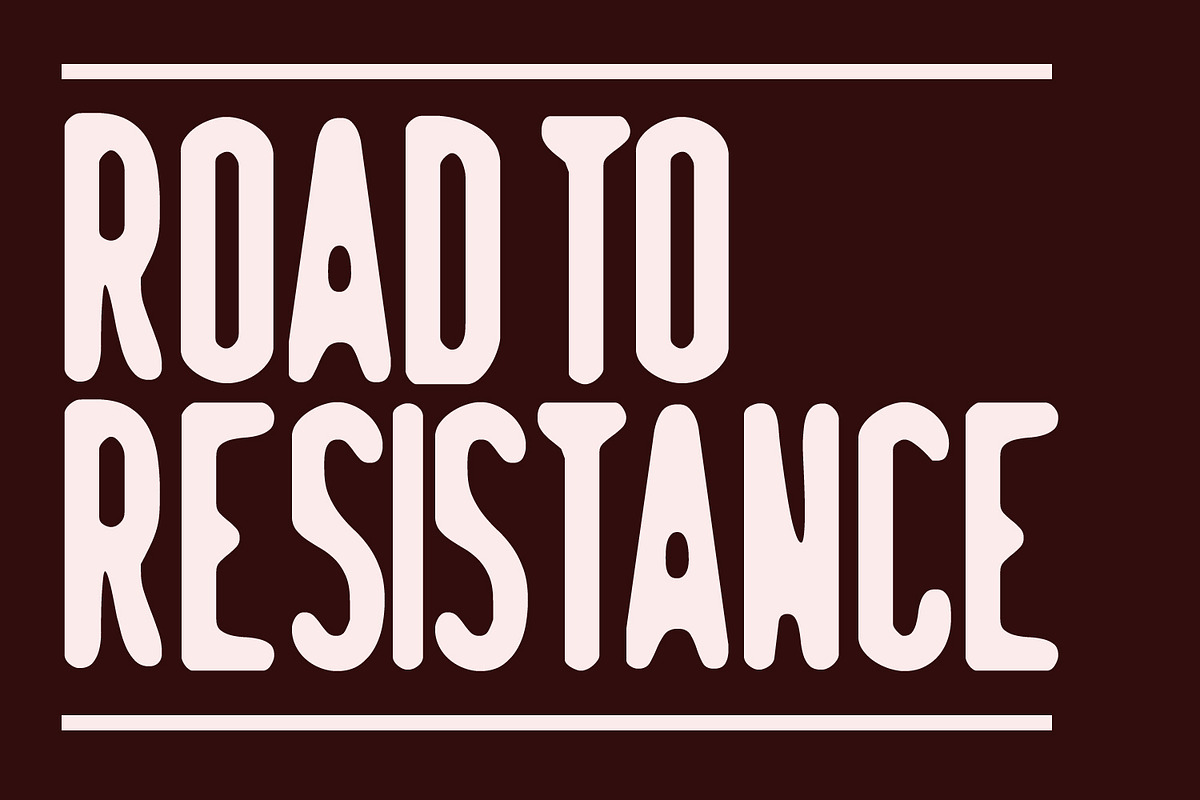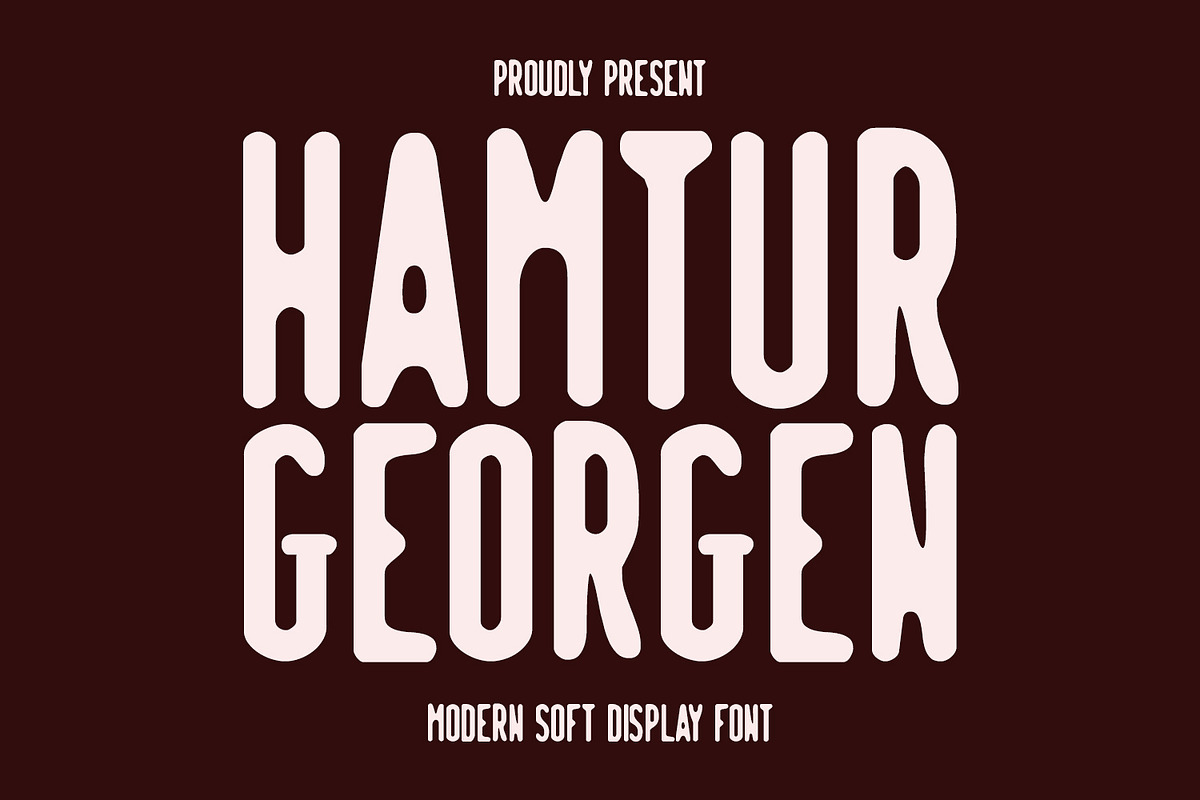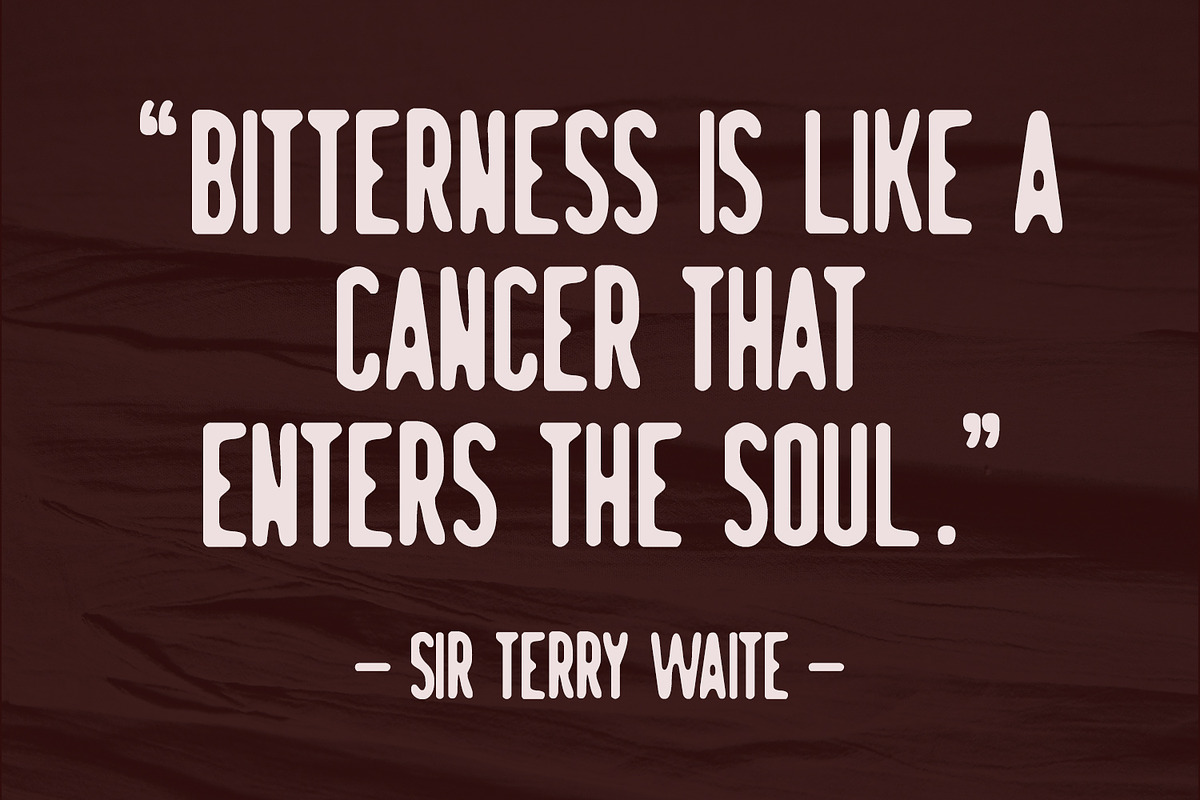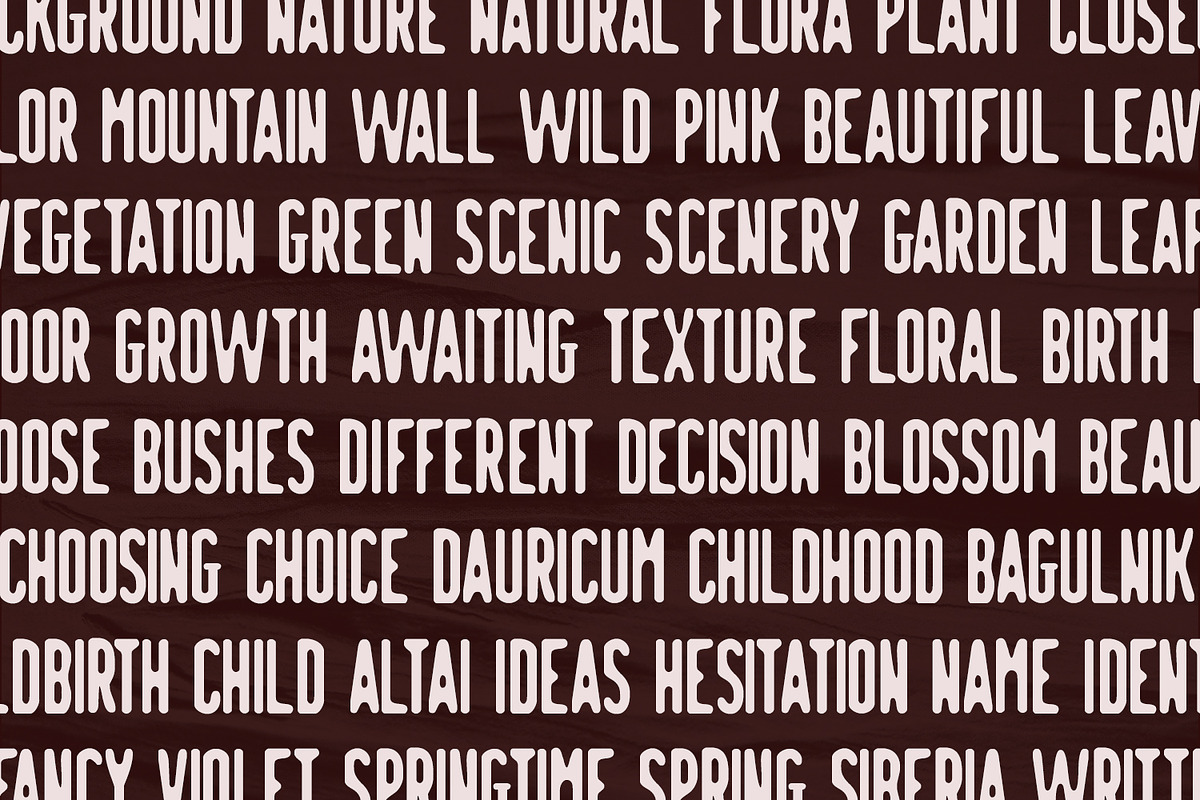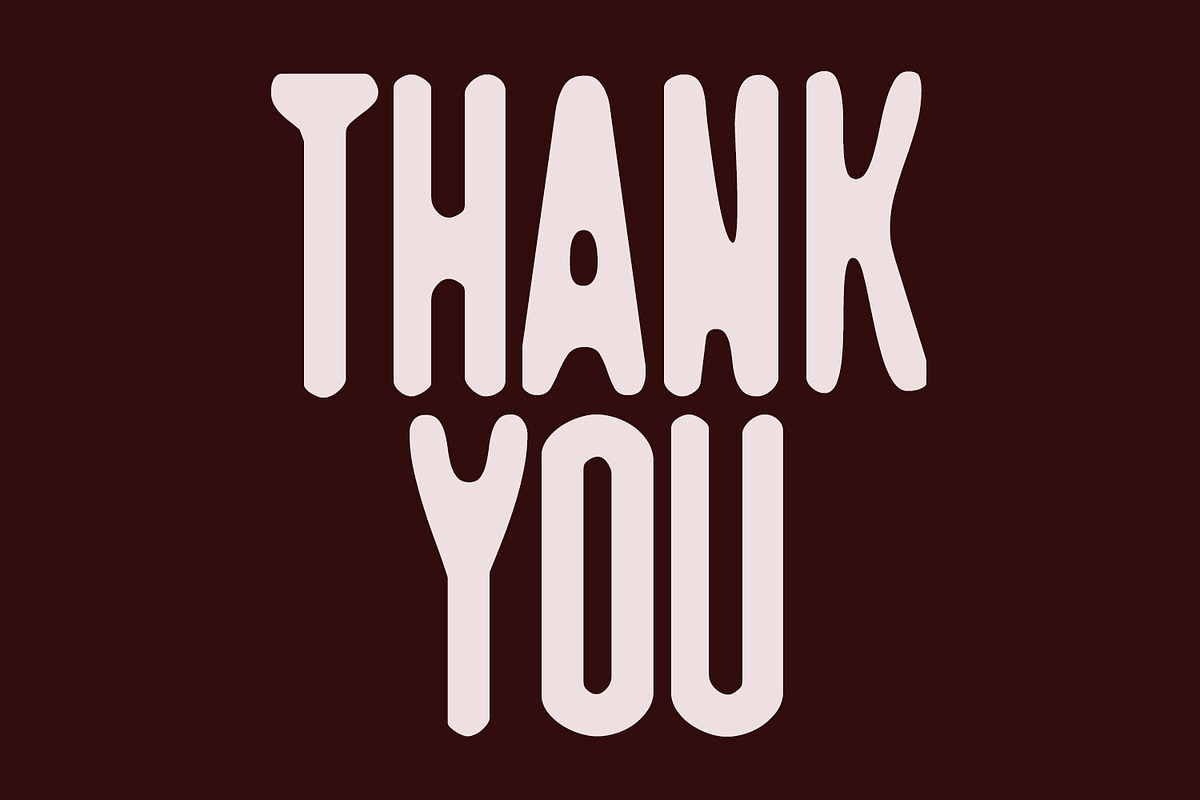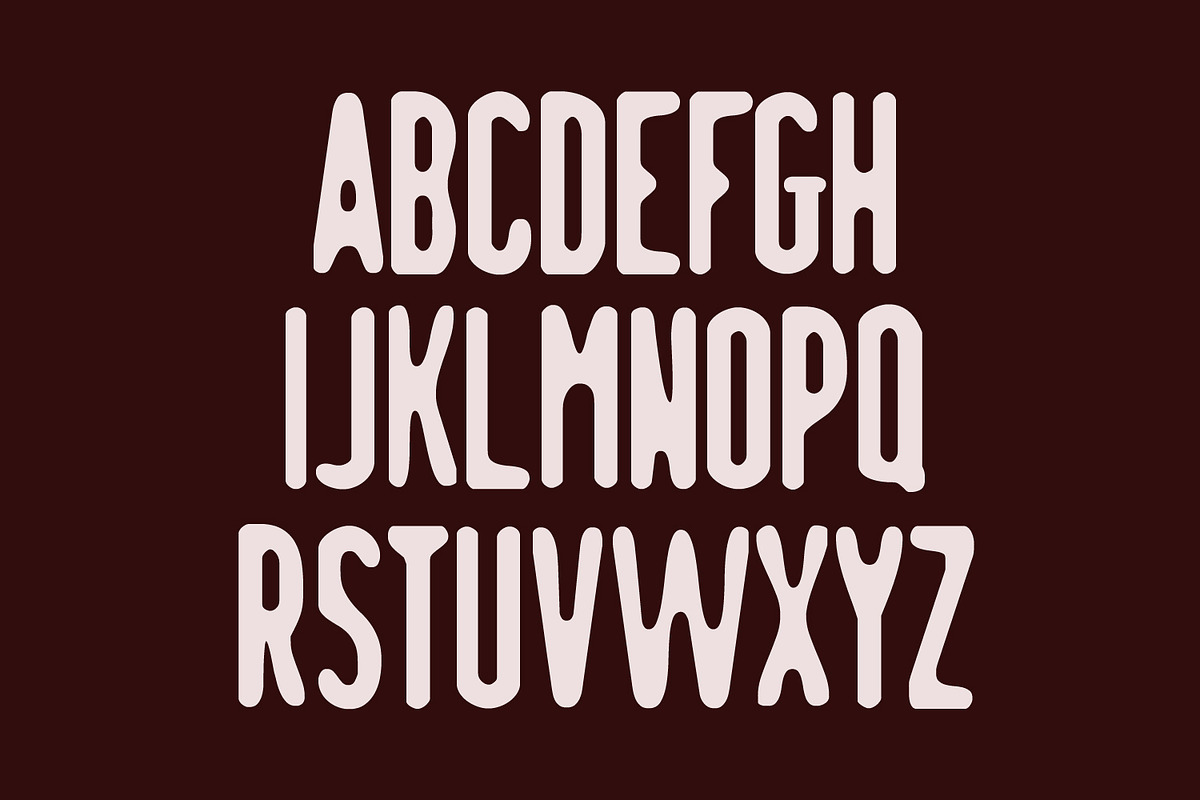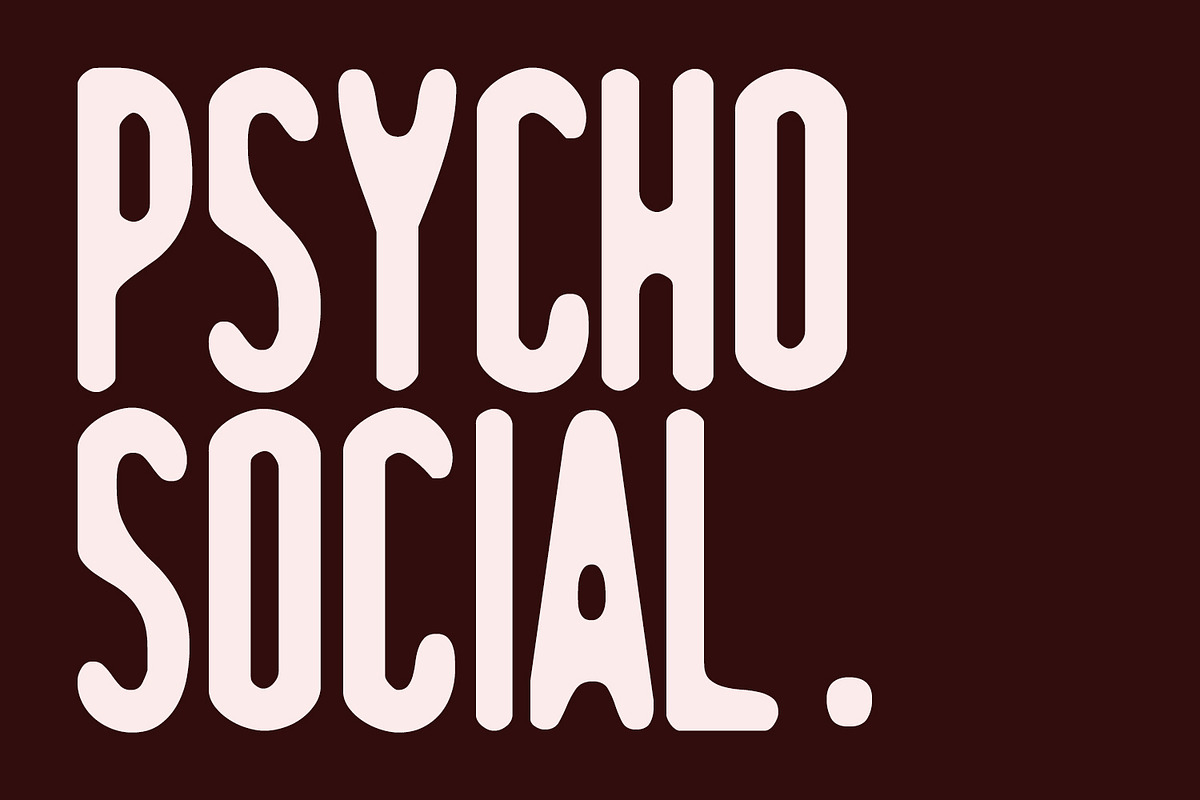
Hamtur Georgen Display Font
Hamtur Georgen is a sans decorative display font. Regular stroke, fun character with a bit of ligatures. To give you an extra creative work. Hamtur Georgen font support multilingual more than 100+ language. This font is good for logo design, Social media, Movie Titles, Books Titles, a short text even a long text letter and good for your secondary text font with script or serif. Make a stunning work with Hamtur Georgen font.